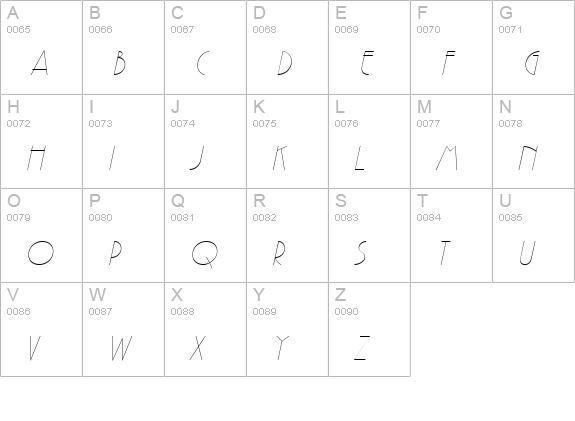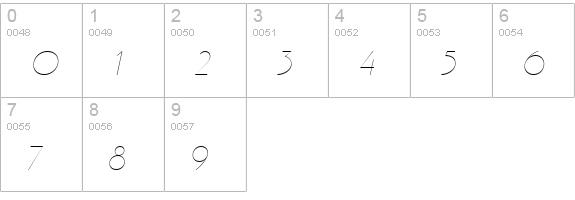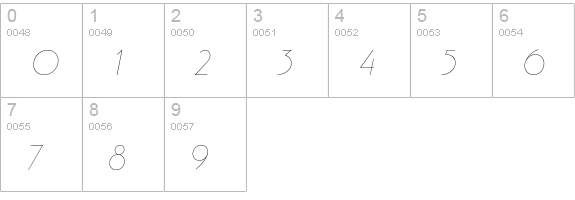
Pouf SSi Light Italic is a refined, elegant, italic variant in the Pouf typeface family \xE2\x80\x94 well suited to elegant body text, refined sub-headings, and luxury branding.
Pouf SSi Light Italic font is a sleek and modern typeface that exudes elegance and sophistication. Its light weight and italic style make it perfect for adding a touch of refinement to any design project. The graceful curves and subtle slant of this font create a sense of movement and fluidity, making it ideal for conveying a sense of style and sophistication. What's even better is that Pouf SSi Light Italic font is available for free download at FontsMarket.com. This means you can easily incorporate this stunning font into your projects without any cost. Whether you're working on a branding project, graphic design, or any other creative endeavor, Pouf SSi Light Italic font is sure to elevate your work with its unique charm and appeal. Don't miss out on the opportunity to enhance your designs with this beautiful font that is not only stylish but also free to use. Download Pouf SSi Light Italic font today and bring a touch of class to your projects.